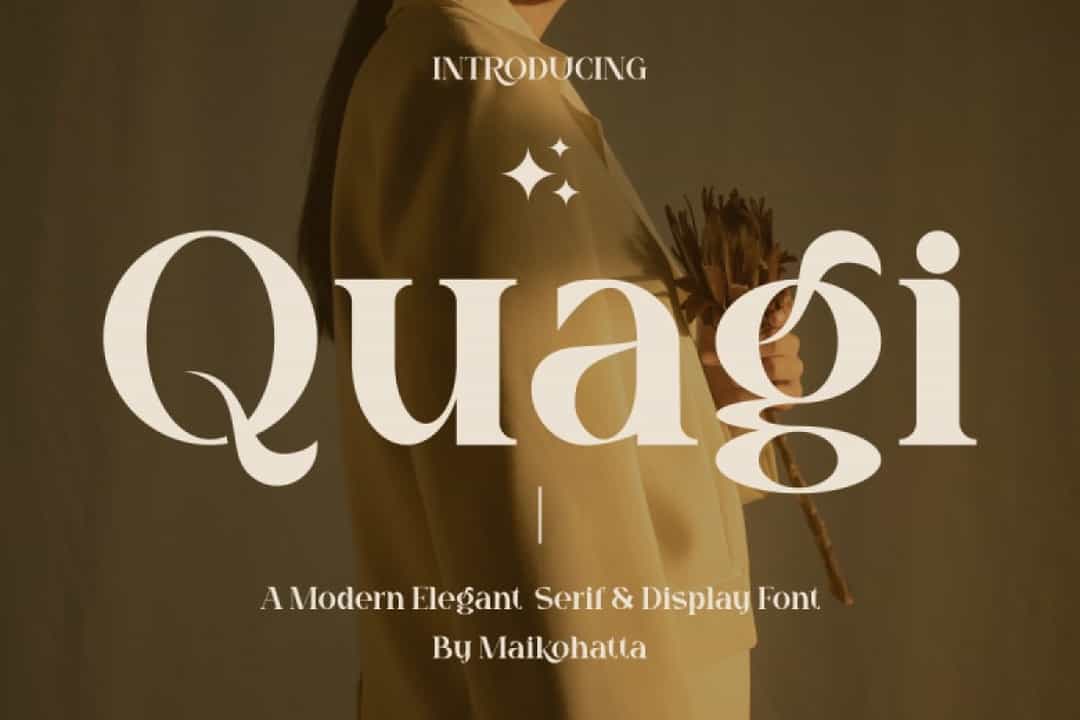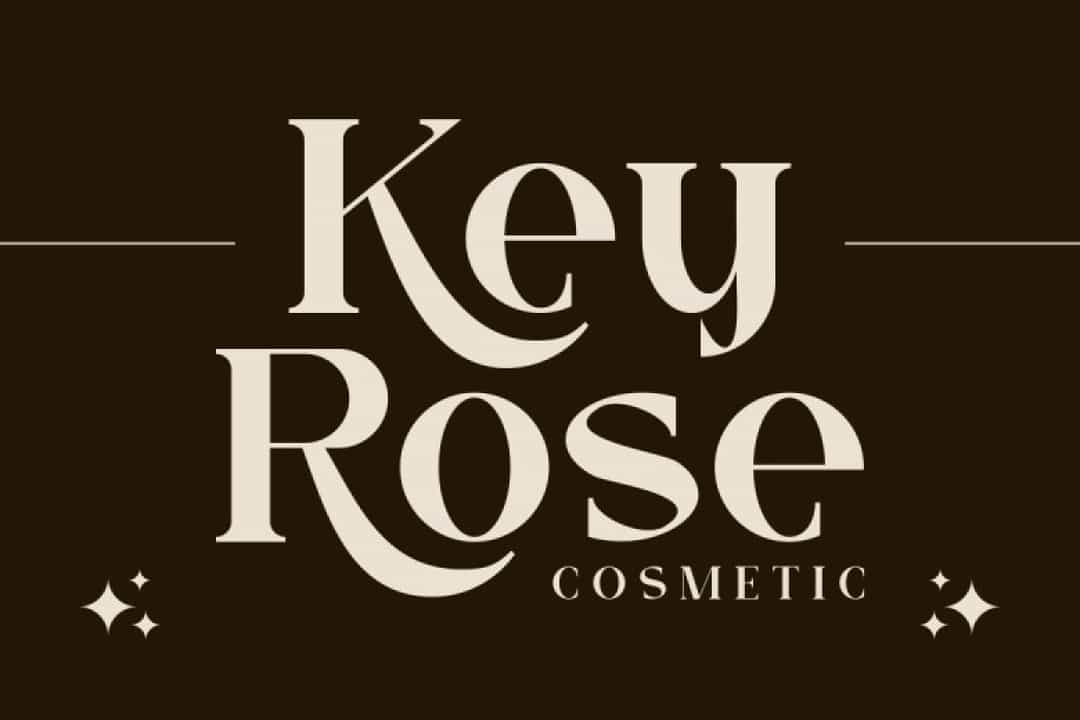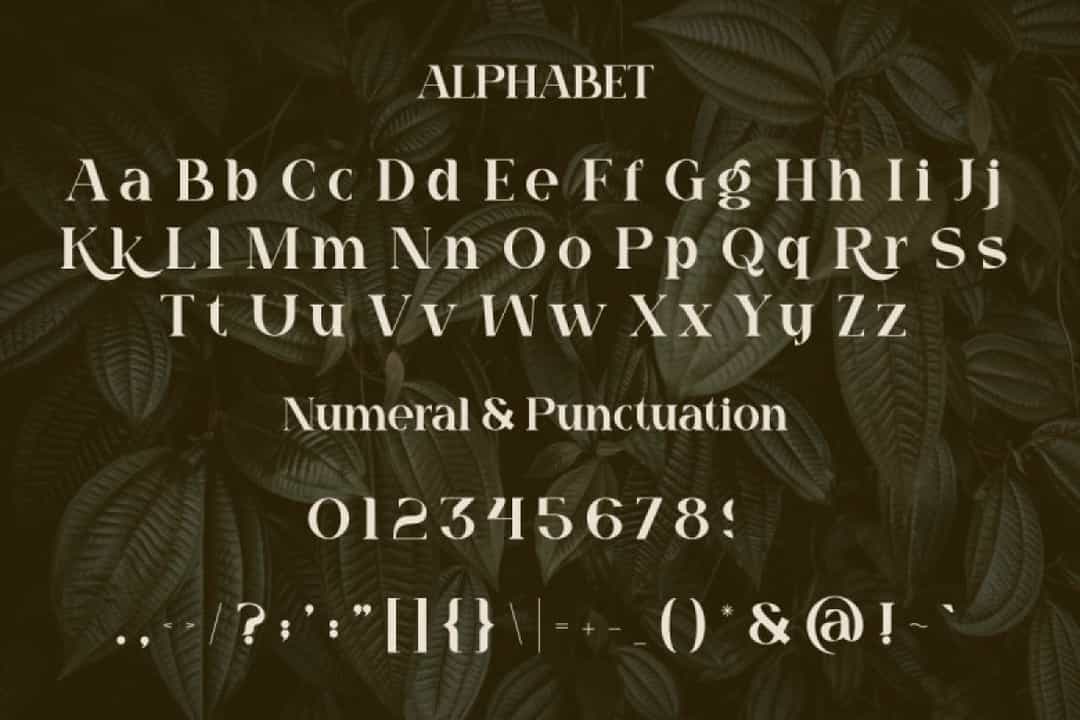
Quagi is an authentic and bold contemporary serif font designed for display purposes, perfect for logos, templates or esports – as well as many other things! This font excels in many circumstances.